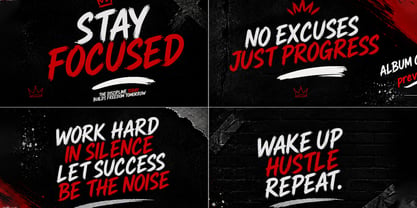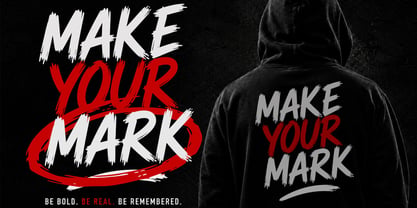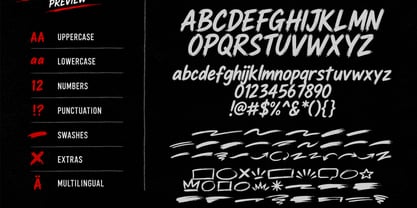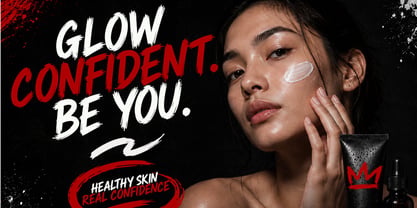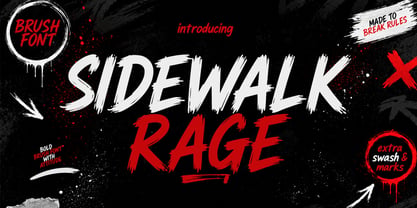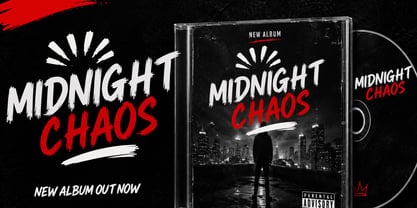
Sidewalk Rage
by Cocodesign
The Sidewalk Rage Font Family was designed by Muhammad Zaini and published by Cocodesign. Sidewalk Rage contains 2 styles and family package options. More about this family
Sidewalk Rage is a striking handwritten brush font that captures the raw energy of urban streets through expressive brush strokes and modern creative culture. Each character features natural dry-brush textures and powerful strokes, resulting in an authentic handcrafted appearance that immediately draws attention. With its strong all-caps style and dynamic movement, Sidewalk Rage is ideal for designs requiring a fearless, energetic, and impactful aesthetic. Whether you're working on branding, posters, apparel, sports graphics, music artwork, or social media content, this font provides a bold visual statement while ensuring excellent readability.
Designers: Muhammad Zaini
Foundry: Cocodesign